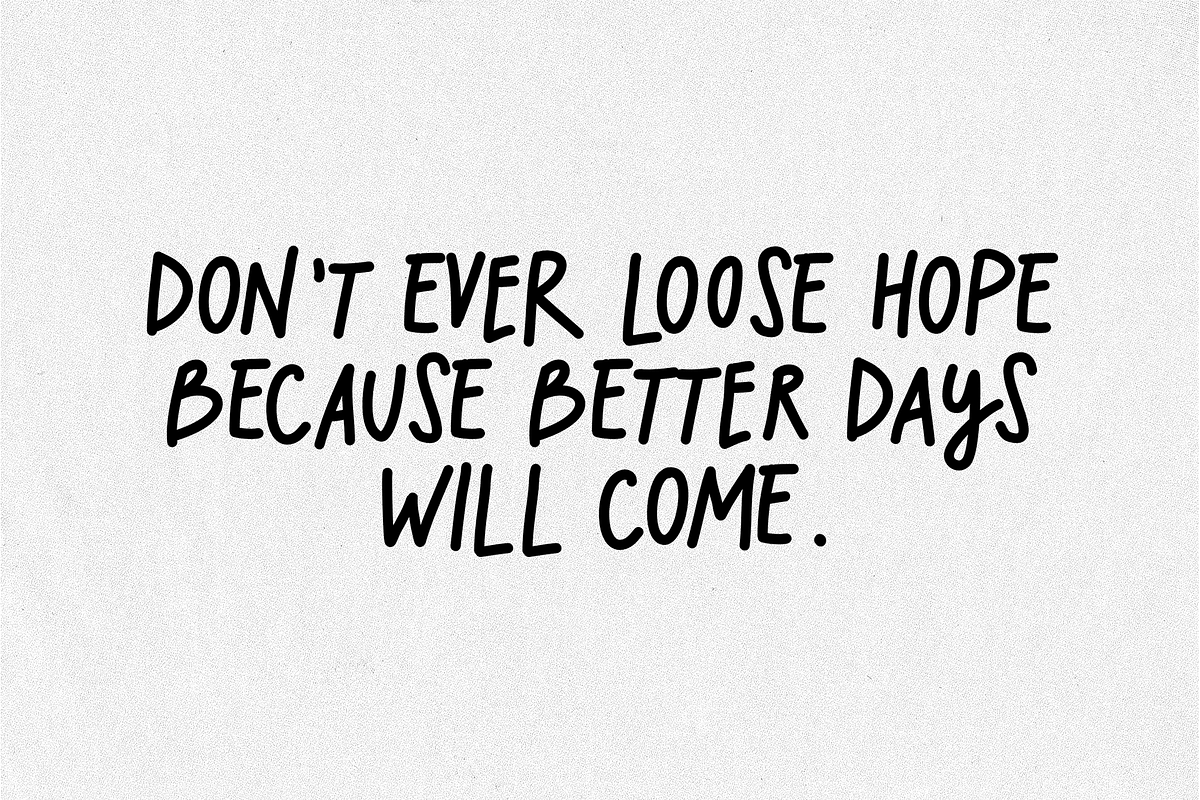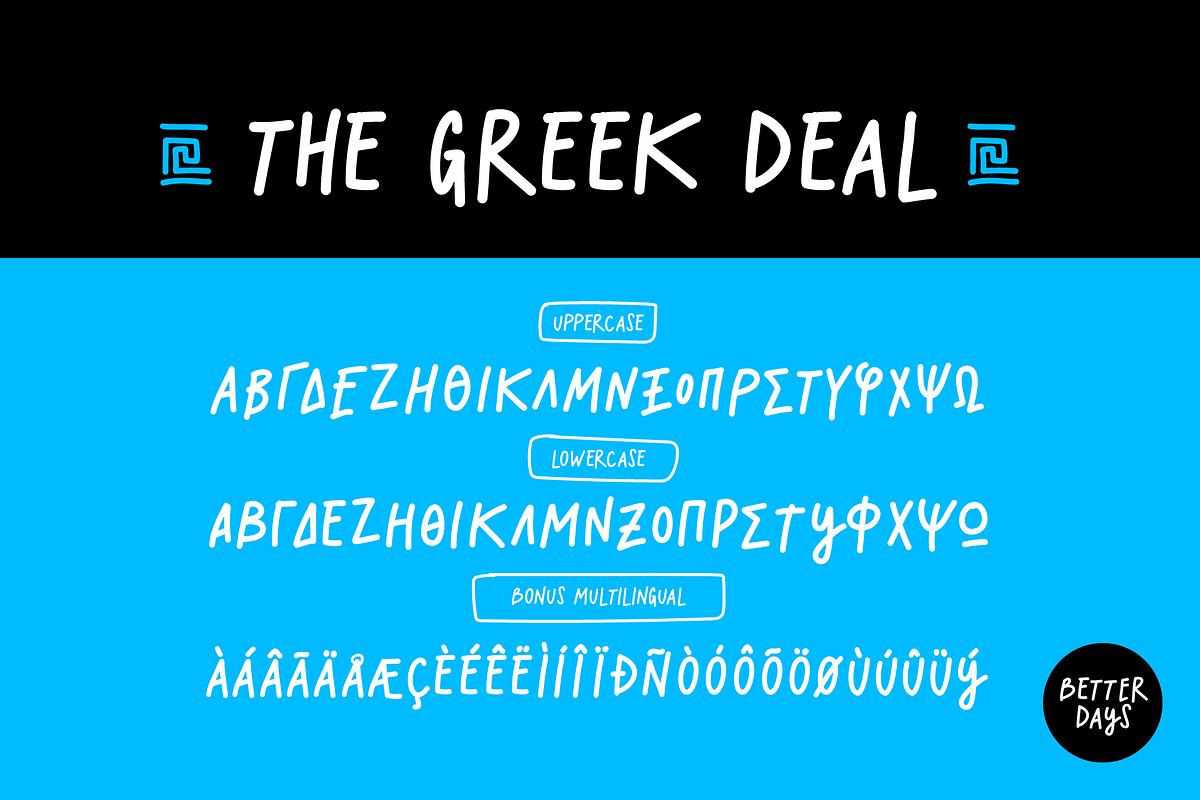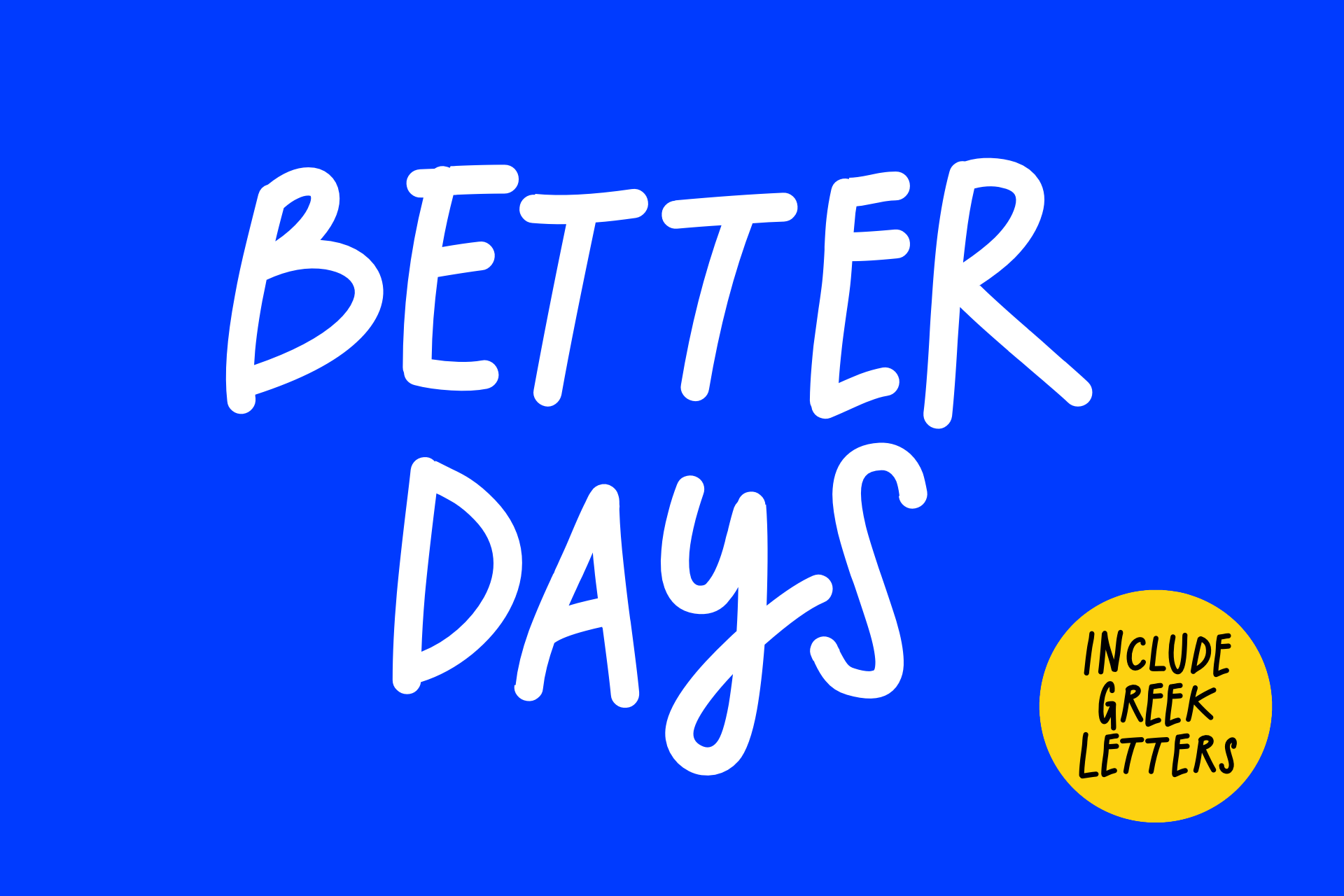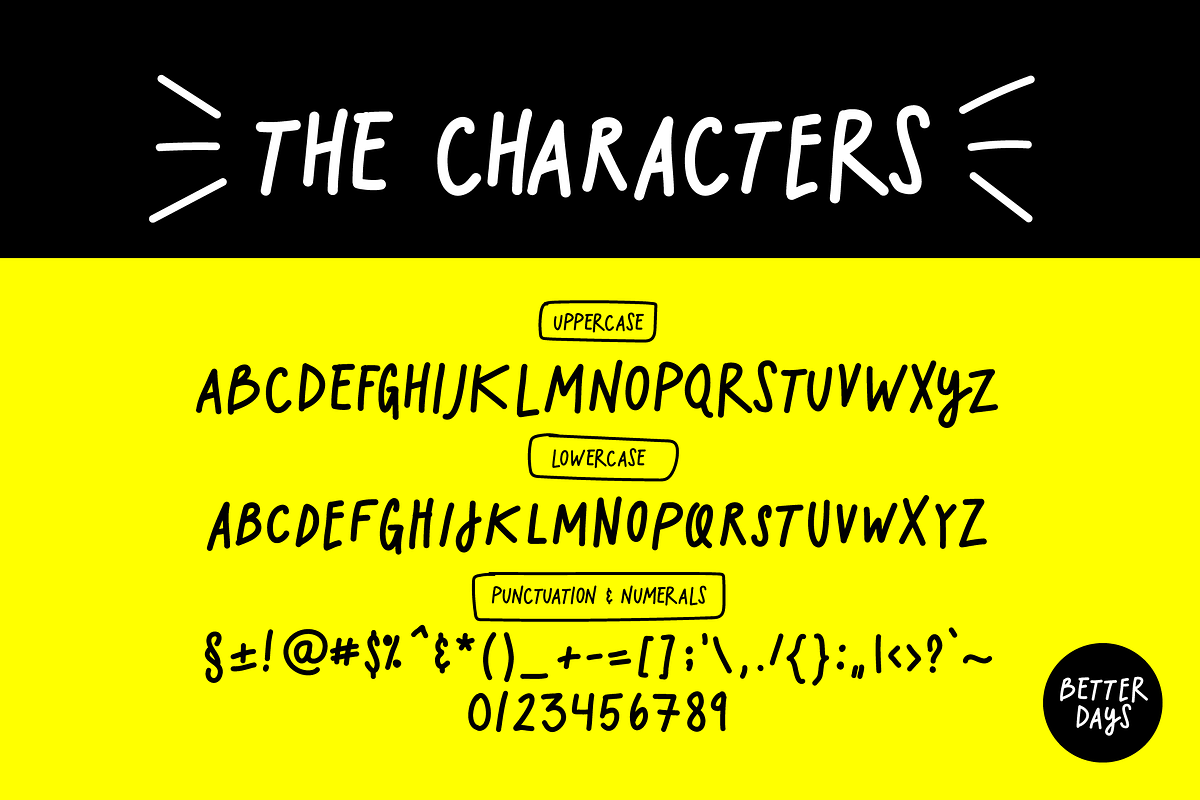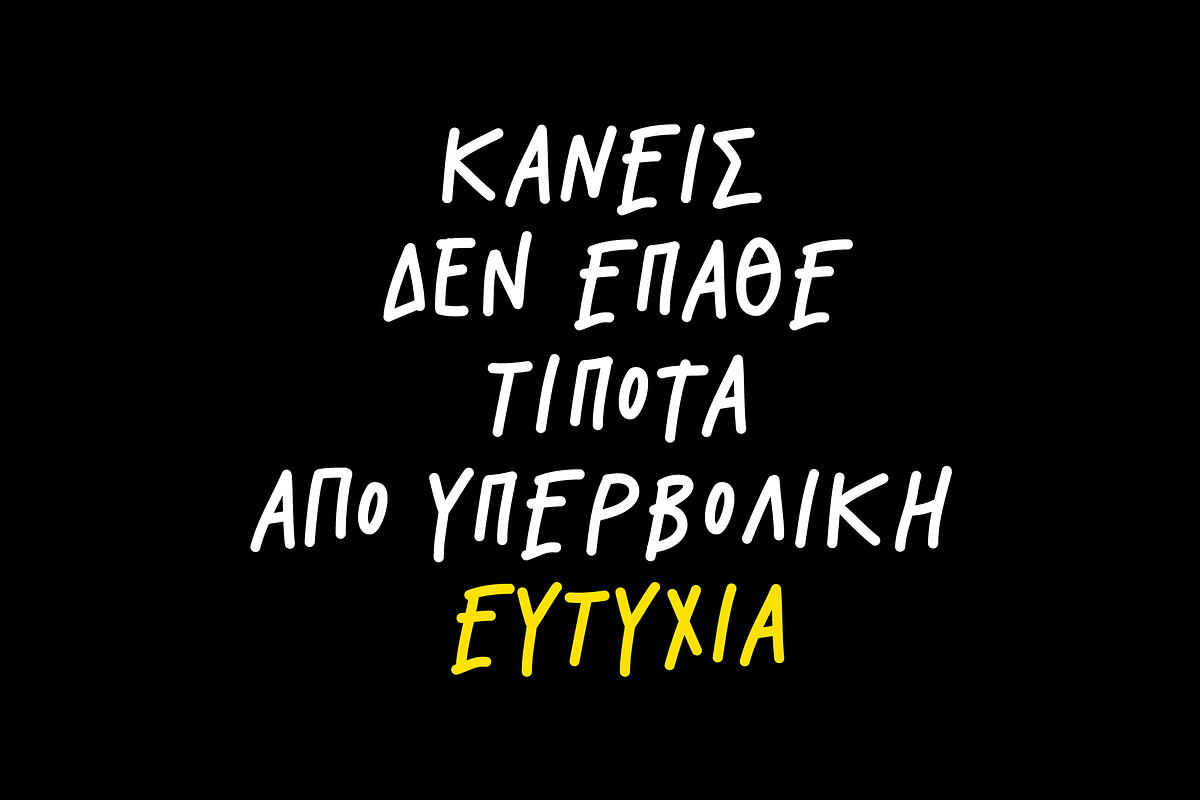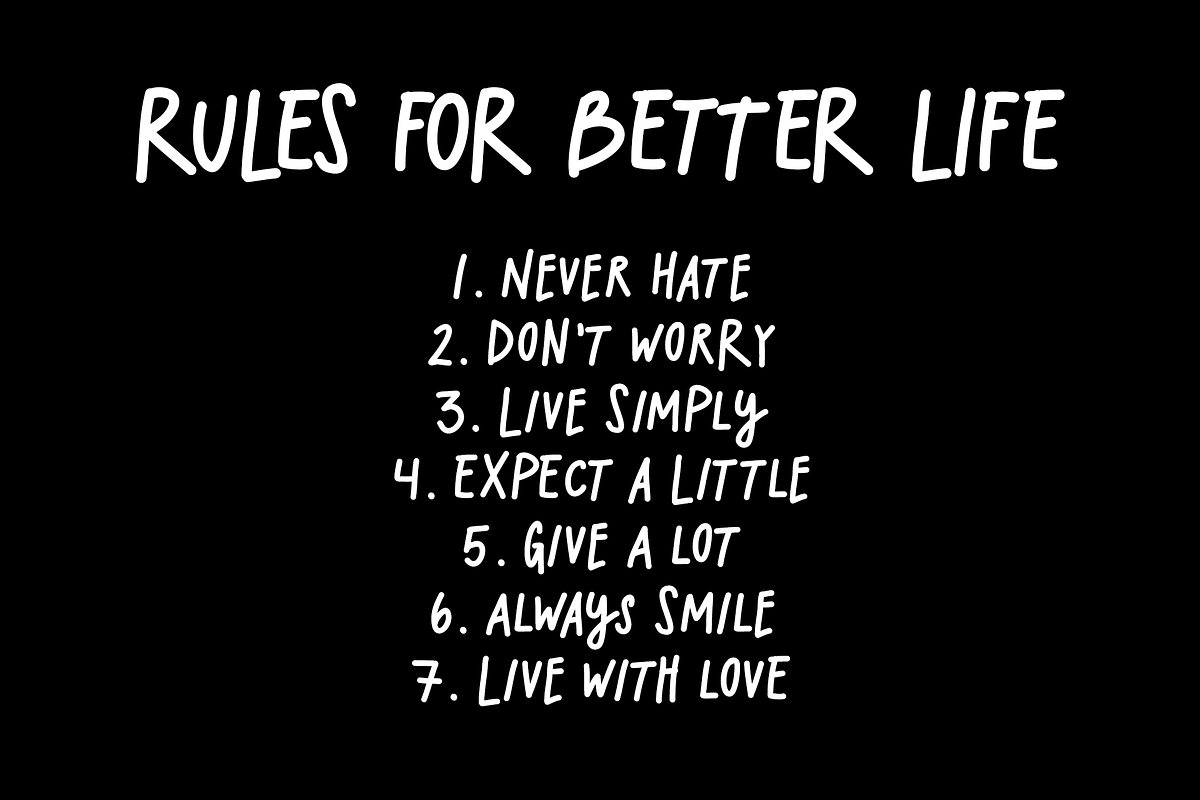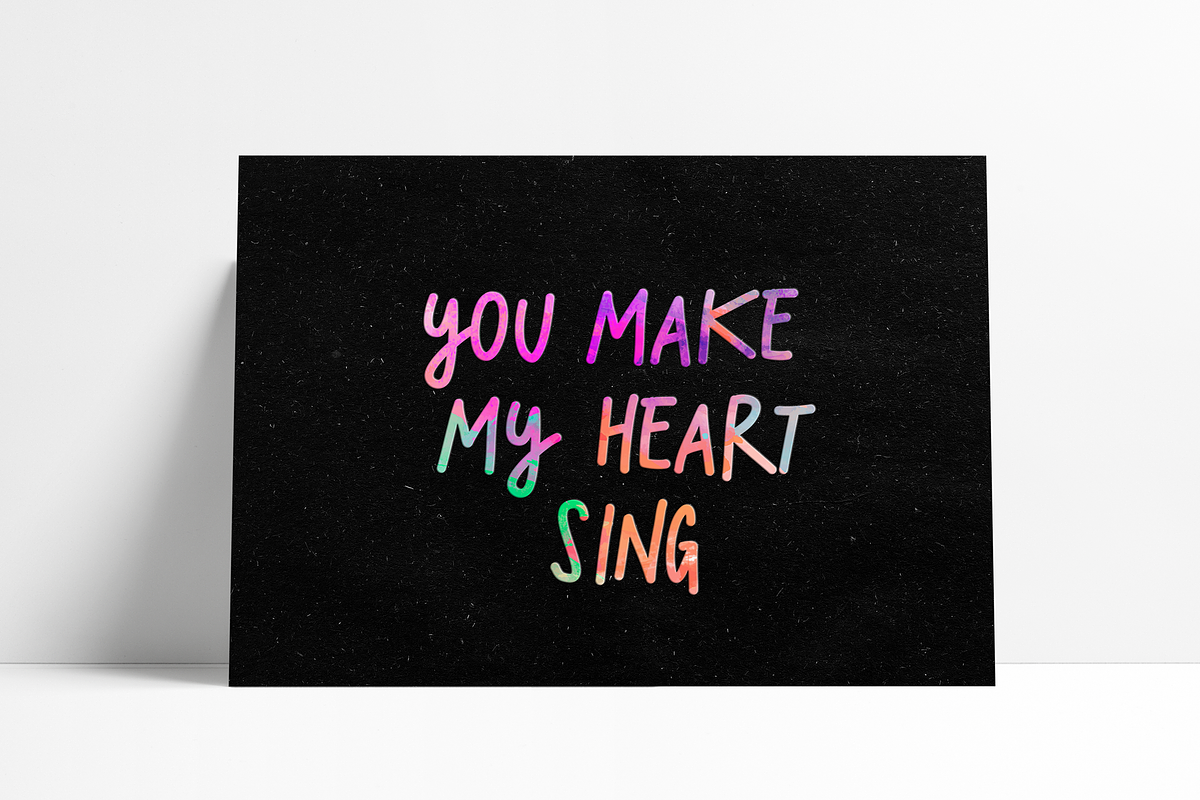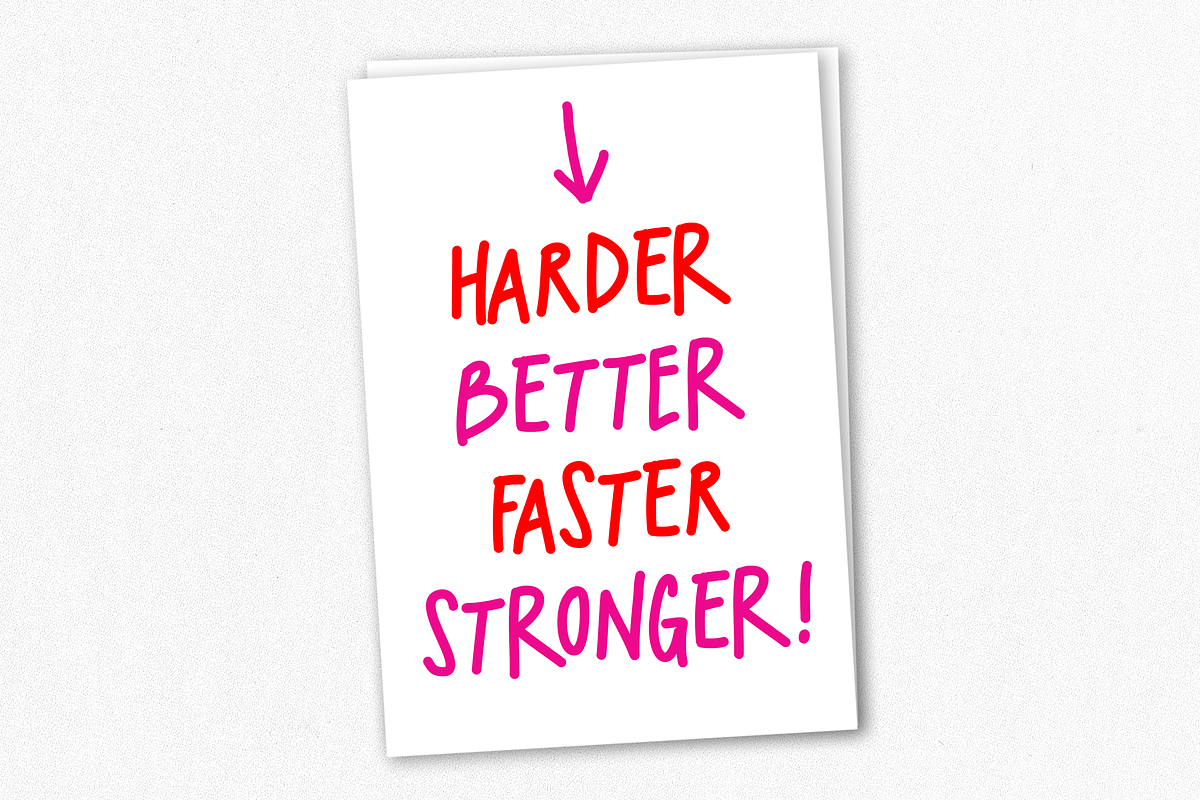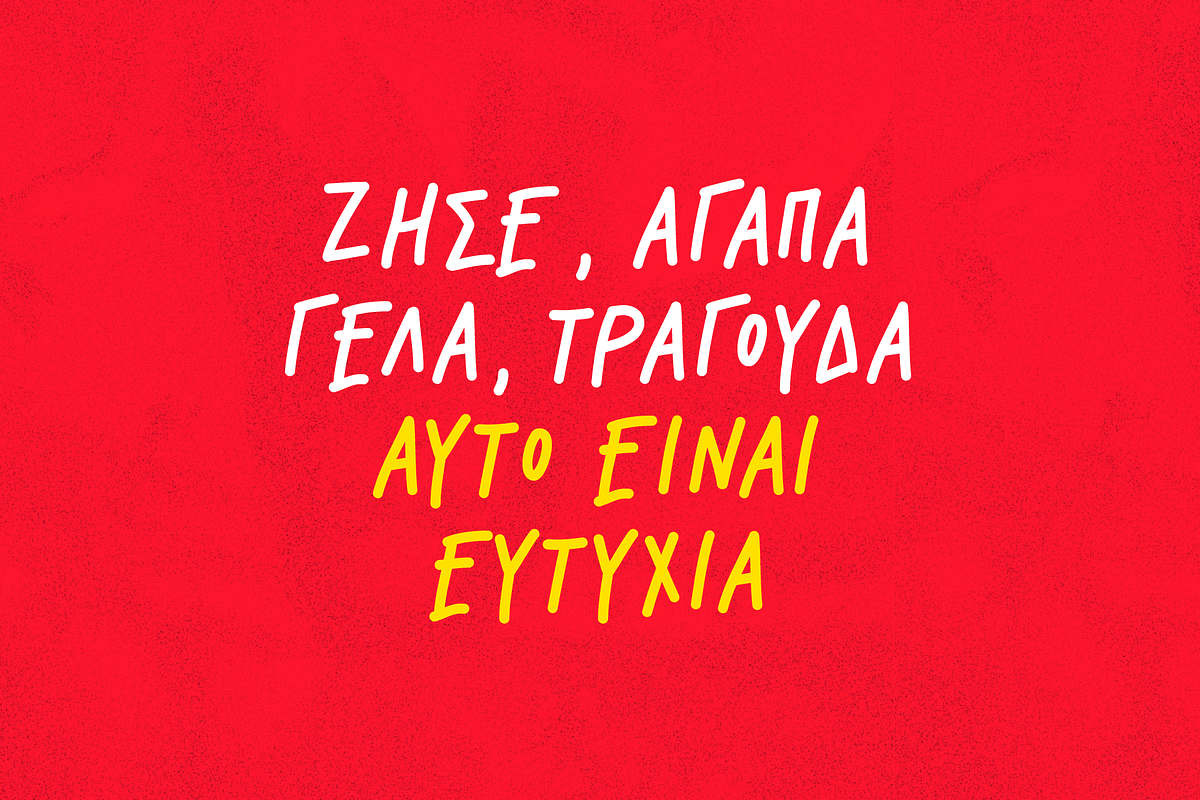
Better Days Marker Font
Introducing Better Days! A chunky casual handmade marker font. Perfect for social media, quotes, greeting cards, posters, unusual packaging or a different style of branding.
The Better Days font comes with a pair of uppercase and lowercases alternates to choose from different style of letters and finally make your design stand out and look more natural and authentic.
Also Better Days font has a full Greek alphabet plus lowercase alternates to use them as above.
Last but not least Better Days font include multilingual support and it doesn't require special software to make it work.